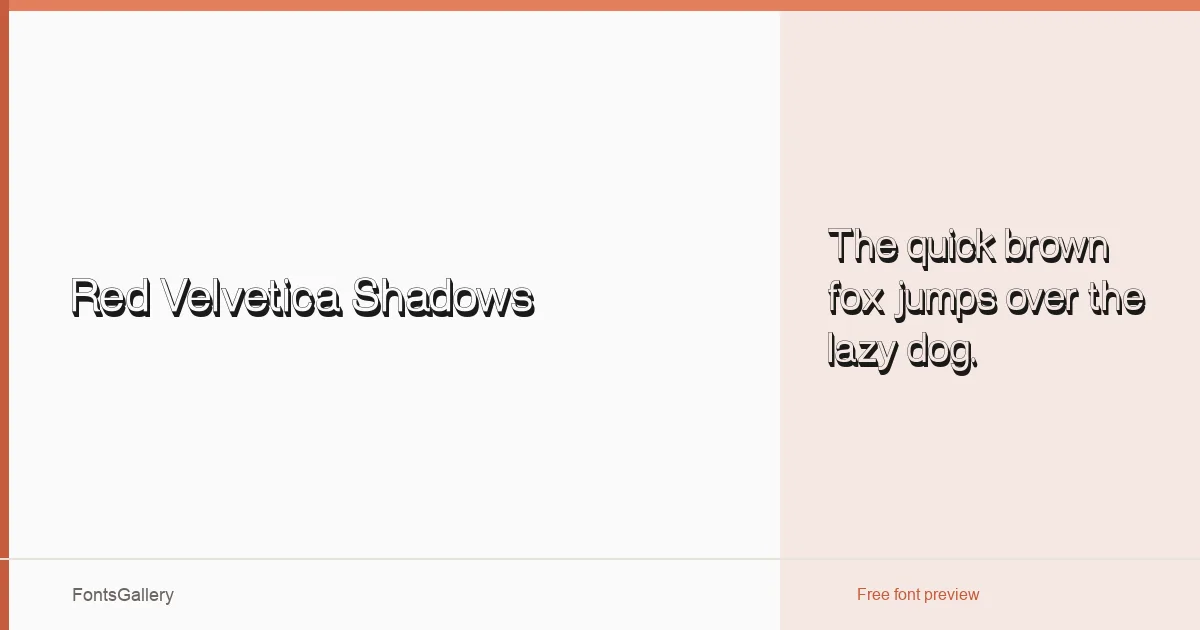
About Red Velvetica Shadows Font
Red Velvetica Shadows is a bold, modern sans serif typeface designed to make a strong visual impact. Its commanding presence and professional character make it a versatile choice for high-visibility design work. The font's shadow detailing adds depth and dimension, elevating it beyond a standard sans serif offering.
As a sans serif typeface, Red Velvetica Shadows features clean, structured letterforms that communicate confidence and clarity. Its bold weight and modern sensibility give each character a powerful stance, while the shadow treatment adds a layered, dimensional quality that enhances its professional appeal. The overall design strikes a balance between contemporary minimalism and eye-catching visual weight.
Red Velvetica Shadows excels in large-format applications such as posters, advertisements, headlines, and signage, where its bold character can be fully appreciated at scale. It is particularly well suited for brands and campaigns that demand attention and project a modern, professional image. For complementary pairings, consider combining it with Aresink or Ballmain to create a well-balanced typographic hierarchy.